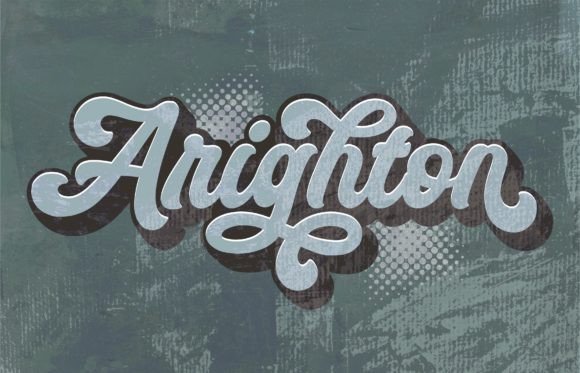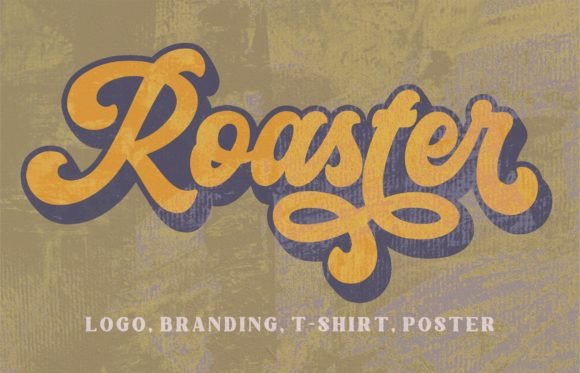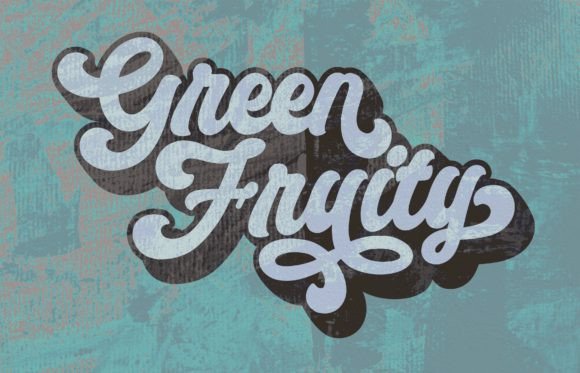
Blantik Font
Blantik is a vintage script font that exudes style and sophistication. Its elegant curves and flourishes bring to mind the glamour of a bygone era. Perfect for invitations, branding, and editorial design, this font will add a touch of class to any project.